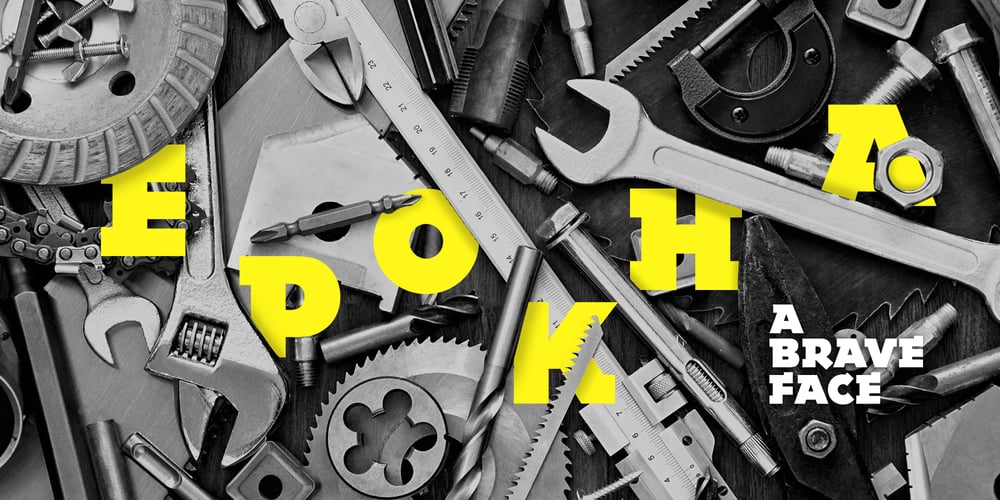
Epokha Font Family was designed by Colin Brignall and published by ITC. Epokha contains 1 styles and family package options. Epokha is the work of Colin Brignall, an unusal slab serif typeface influenced by the poster styles of the early 20th century. Its robust geometric construction commands attention in a fresh, contemporary way. Epokha is made even more flexible by a number of alternative letter forms and should be set tightly for maximum effect.